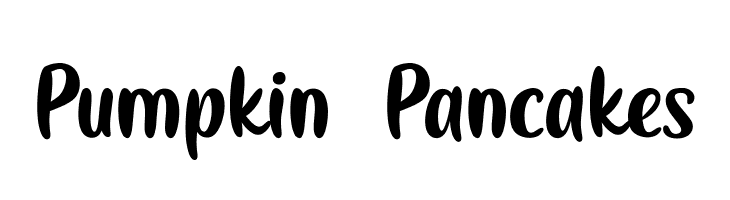
A playful, hand-drawn font with a whimsical, quirky style.
A playful, bold handwritten font with smooth, rounded edges and a casual style.
A playful, rounded font with a bold and whimsical style.
A playful, rounded font with smooth curves and a friendly appearance.
A playful, bold handwritten font with a casual and friendly vibe.
A playful, handwritten font with bold, rounded characters and a whimsical style.
A playful, handwritten font with tall, narrow letters and a casual style.